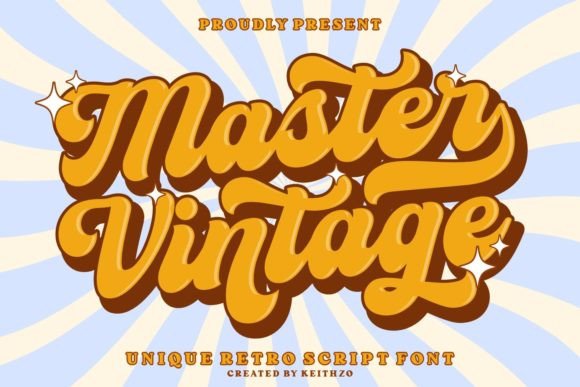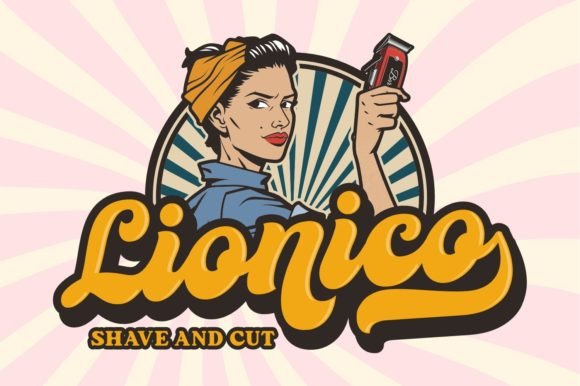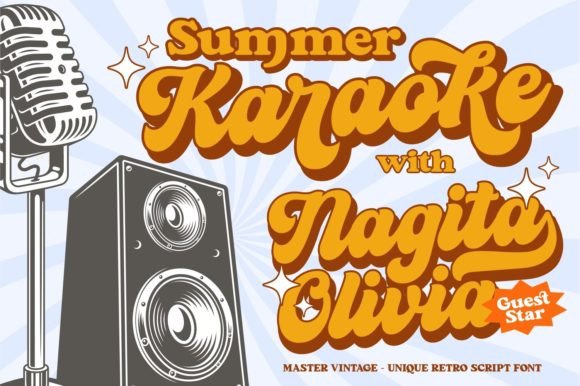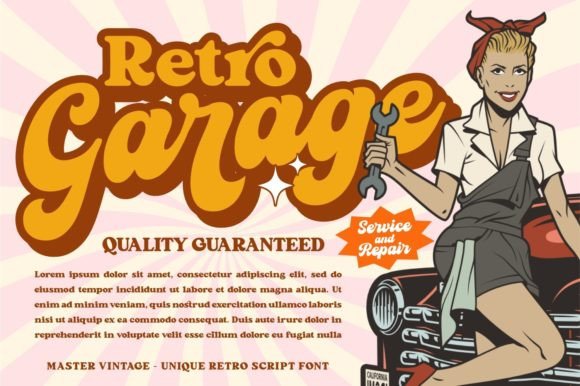
Master Vintage Font: Groovy Retro Script for Bold Headlines
About the Master Vintage Font
Let us introduce you to Master Vintage Font, where timeless design meets modern craftsmanship. Master Vintage is a cool and retro script display font that takes you back in time. With its bold strokes and vintage-inspired letterforms, it captures the essence of the past while adding a modern twist. Perfect for branding, packaging, or poster designs, Master Vintage brings a touch of nostalgia and authenticity to your creative projects. Get ready to make a statement with this timeless font.
Master Vintage’s bold strokes and strong character make it ideal for headlines, logos, and short, impactful text on packaging or posters. It excels in projects requiring a retro aesthetic with a modern edge, such as vintage-inspired branding for clothing, coffee shops, or music events. However, its decorative nature makes it unsuitable for body text or user interfaces, where legibility at smaller sizes is crucial.
Pairing Master Vintage with a clean sans-serif like Open Sans for body copy provides excellent contrast and readability. For a more vintage-inspired feel, consider pairing it with a complementary serif like Playfair Display. These pairings balance the font’s strong personality, allowing the vintage script to shine as a statement element.
The overall personality is bold and nostalgic, conveying a sense of classic style with a modern twist. It projects confidence and authenticity, making it a powerful choice for brands aiming for a retro-modern aesthetic.
Master Vintage Font Usage Examples
Master Vintage Font Example